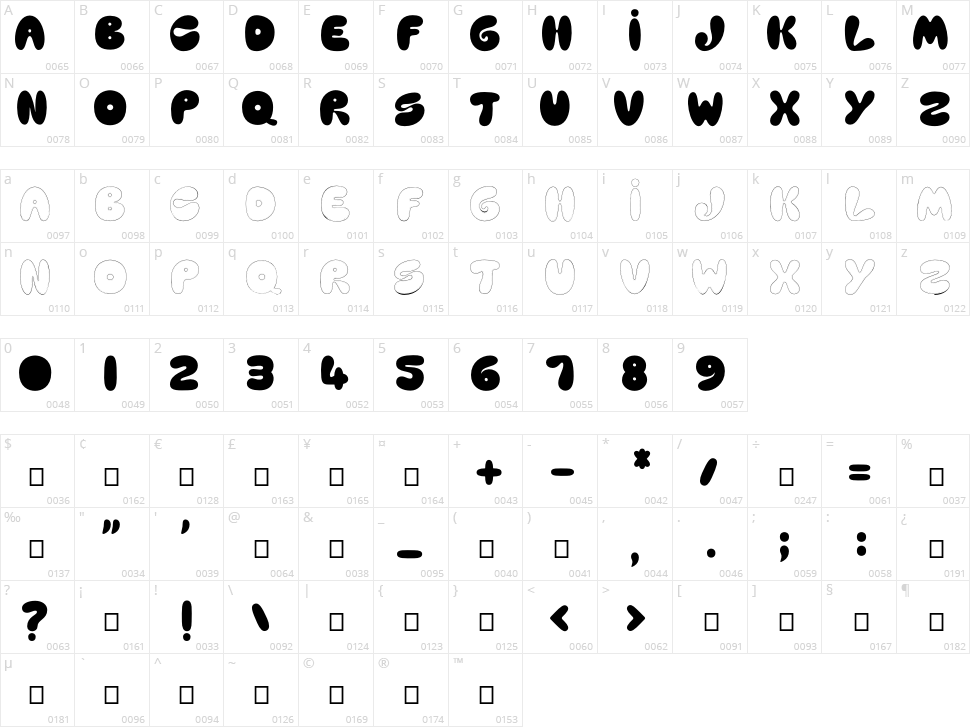
Fony
Note of the author Introducing "Fony" - a delightful, fancy font that brings a touch of playful elegance to your projects. With its charming cartoon-inspired design and rounded edges, Fony adds a whimsical flair to any text. Whether you're creating invitations, posters, or social media graphics, this versatile font is sure to catch the eye and spark joy.